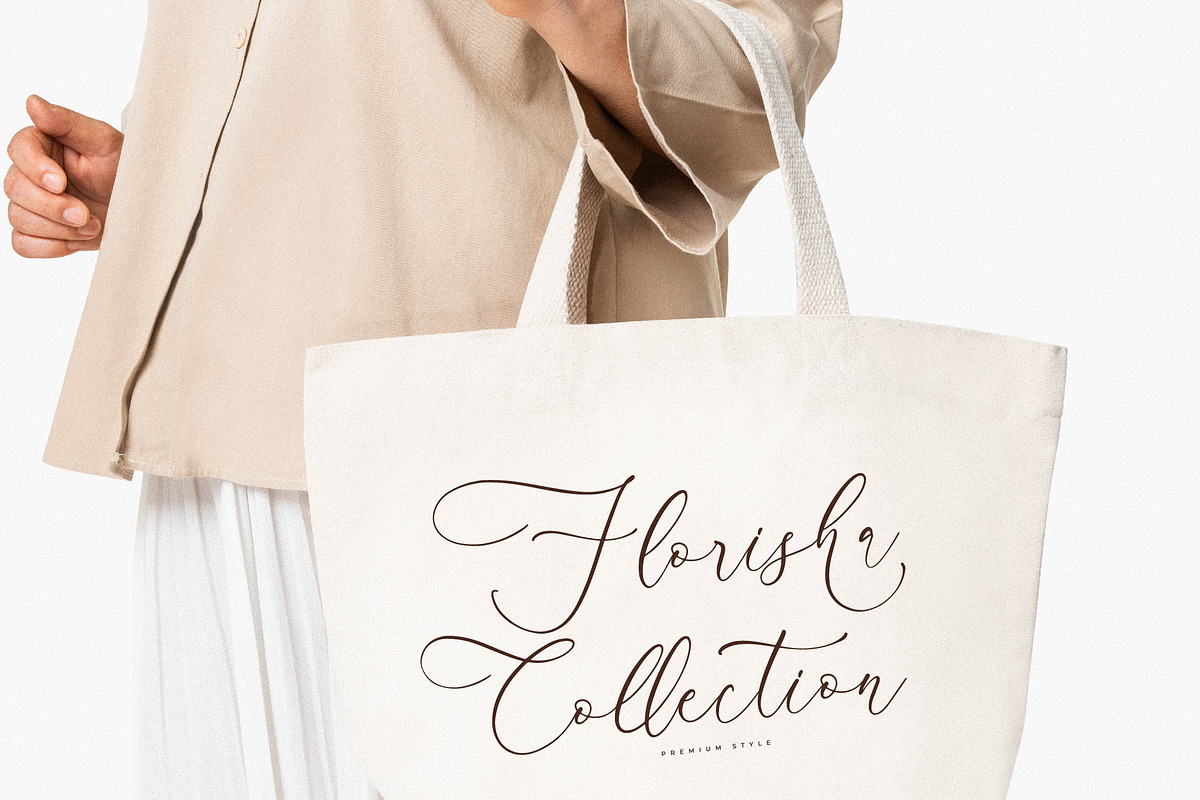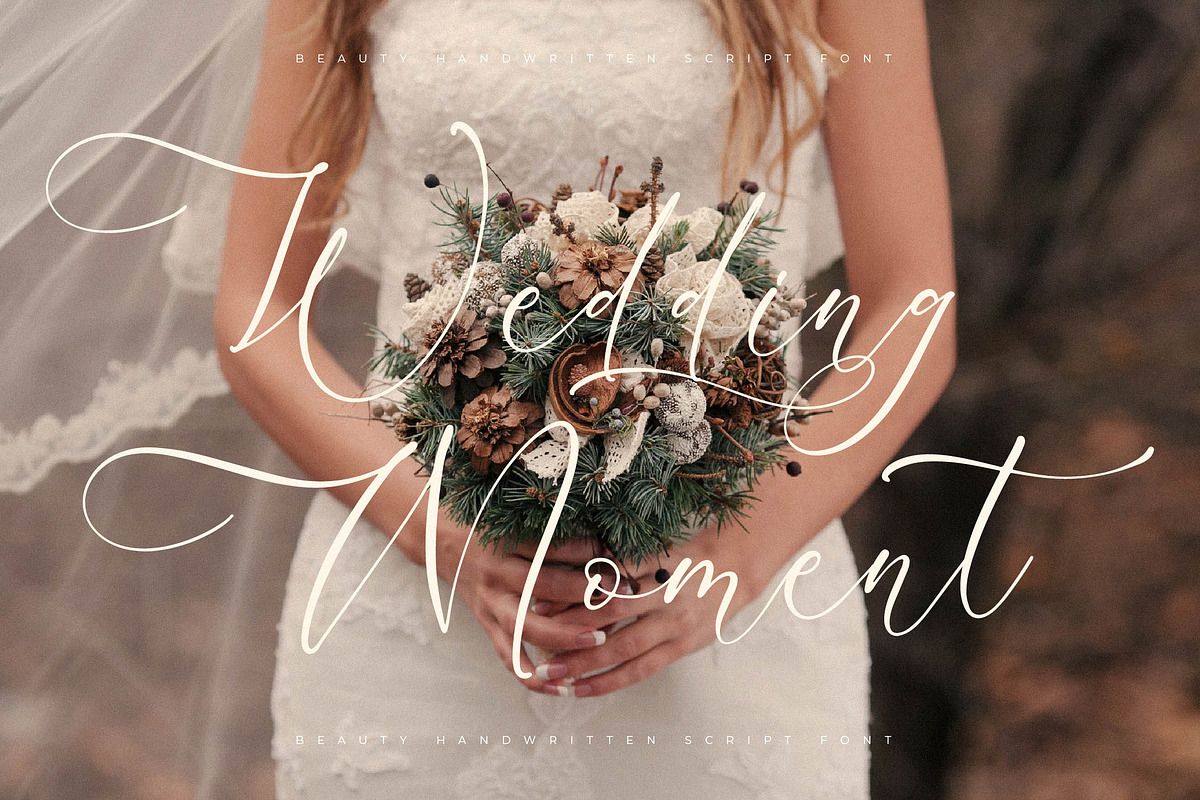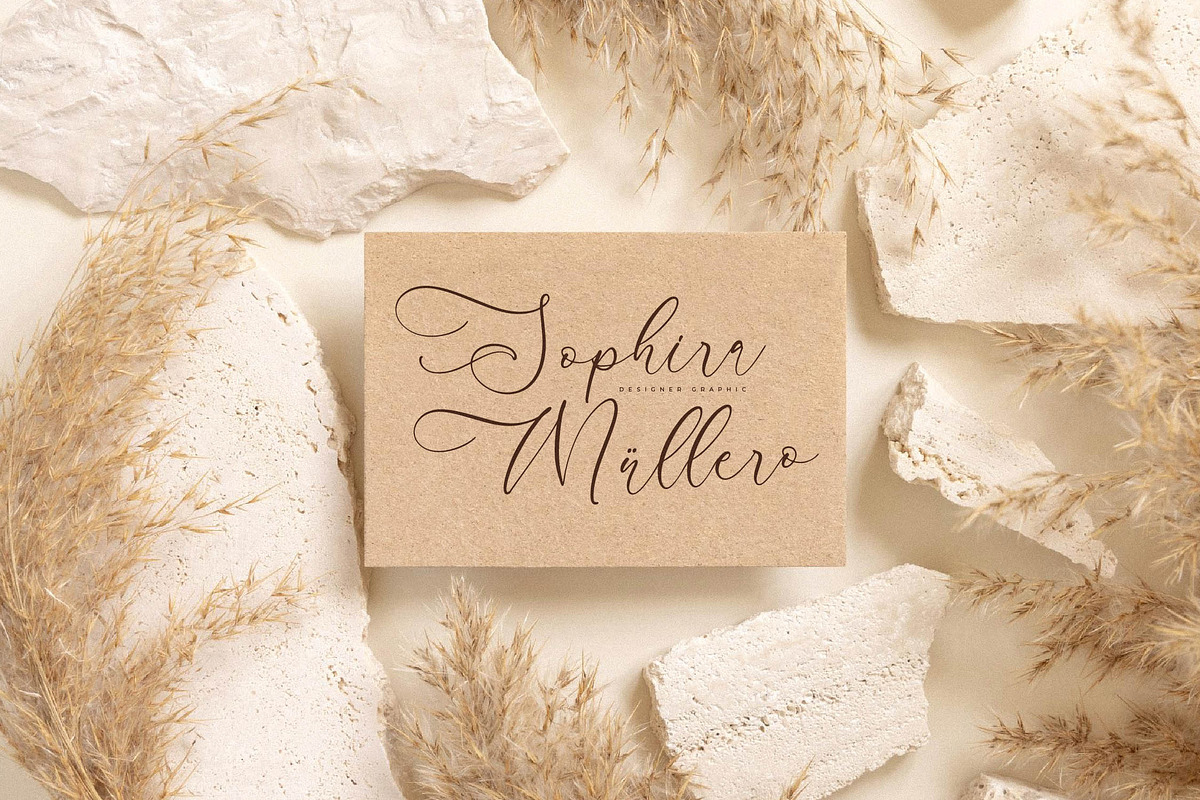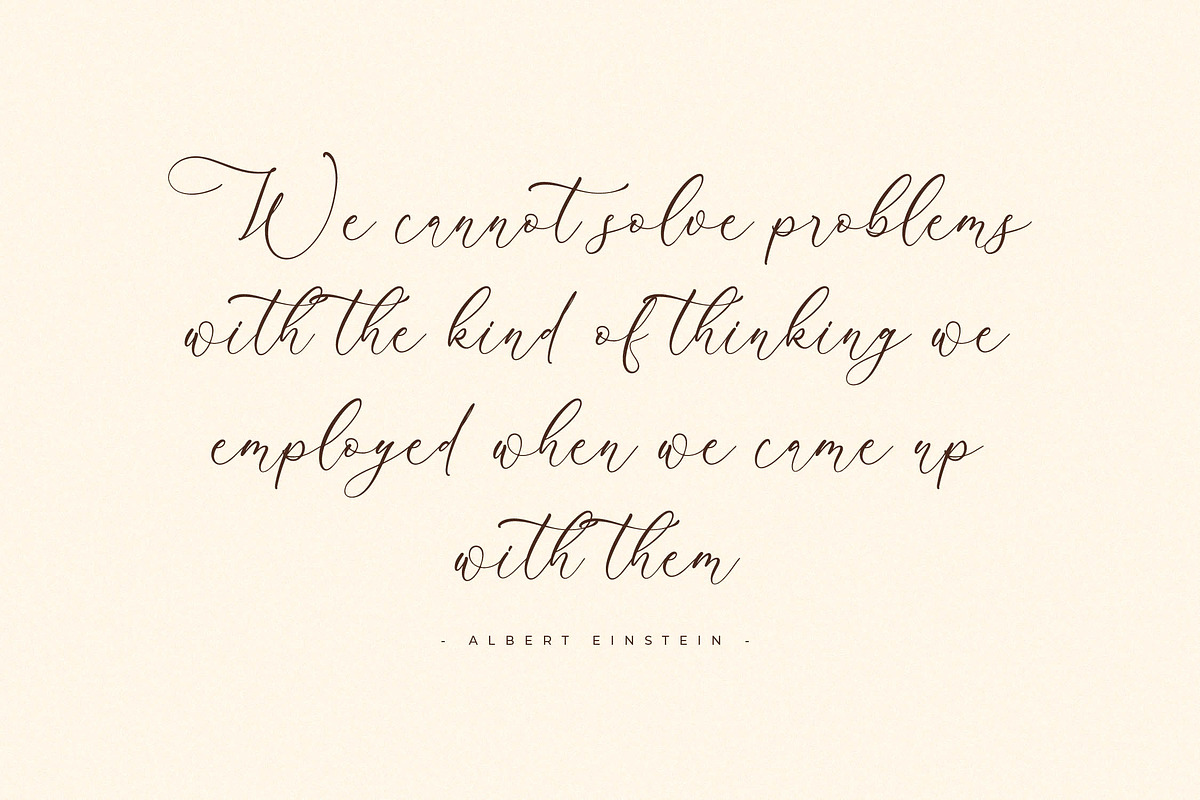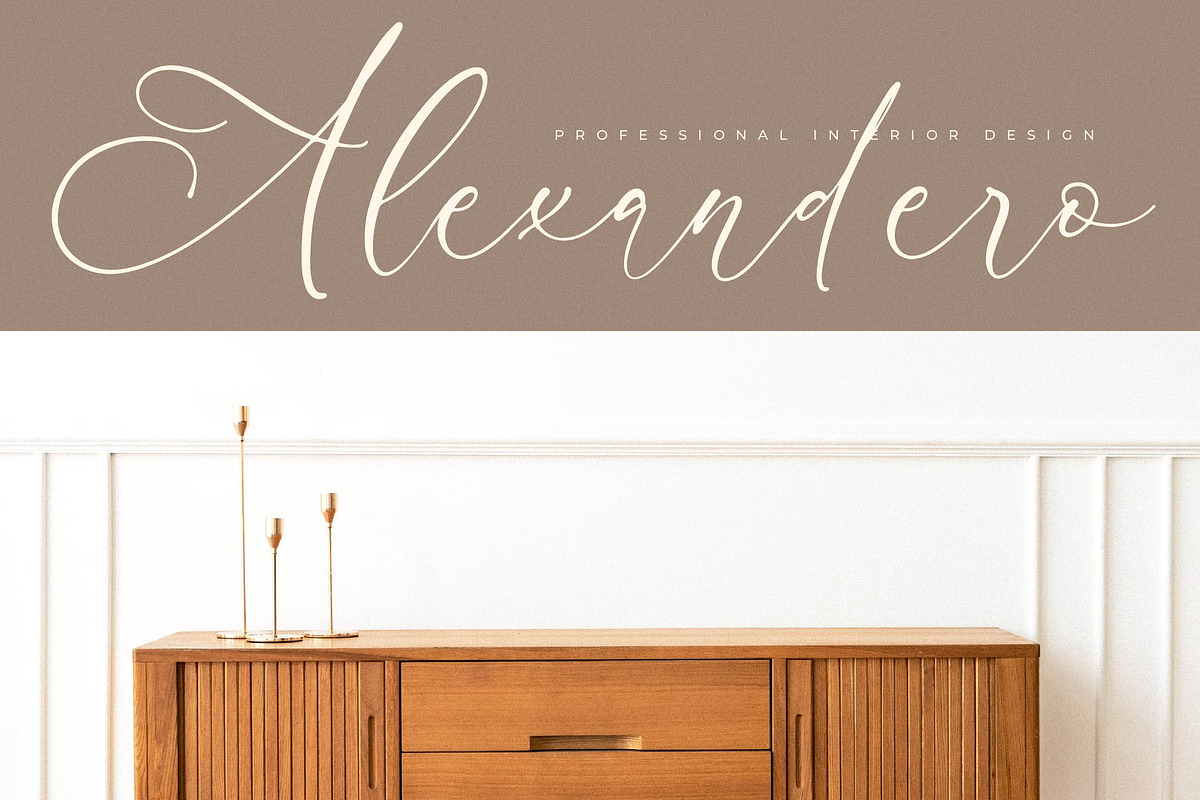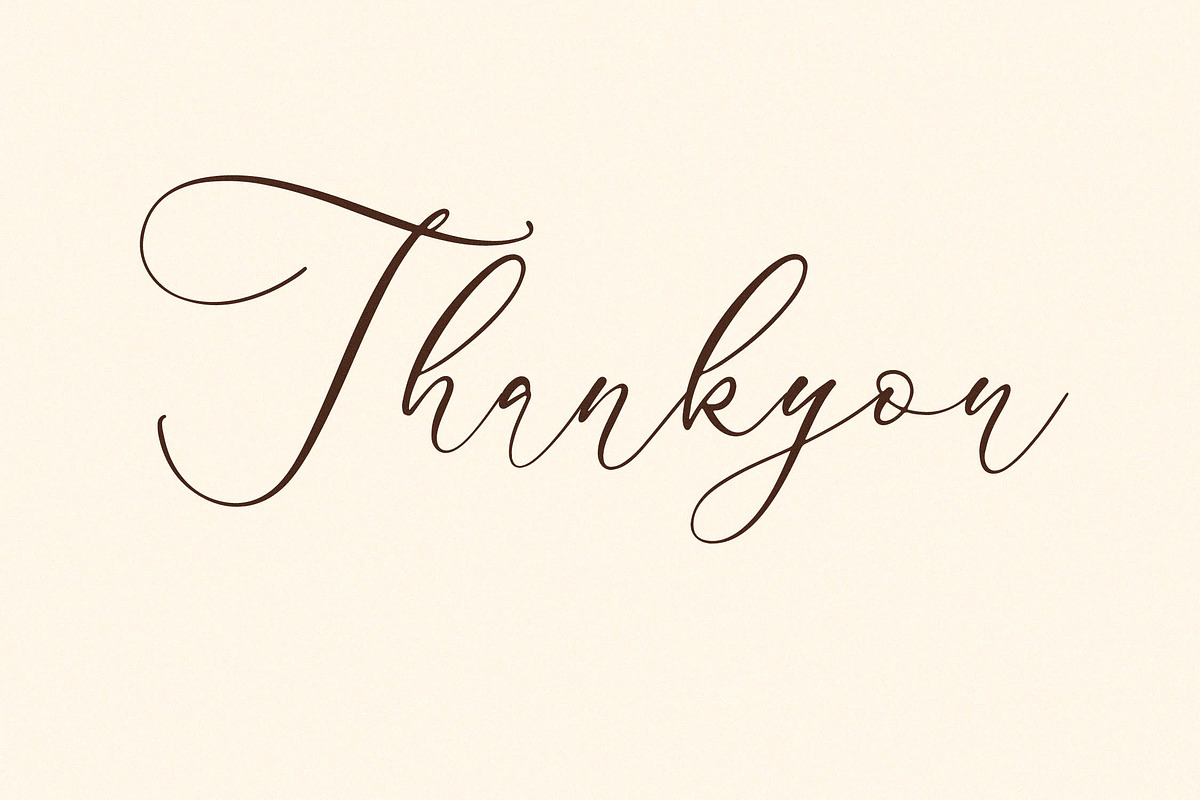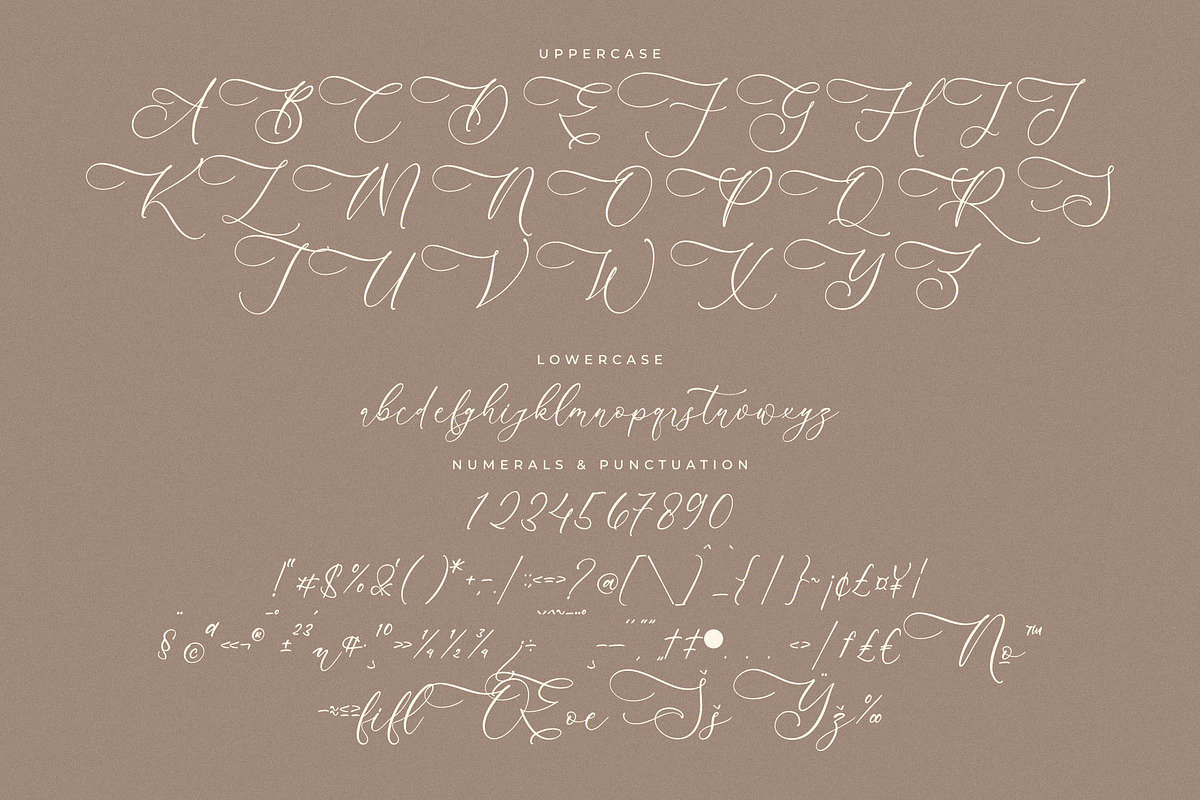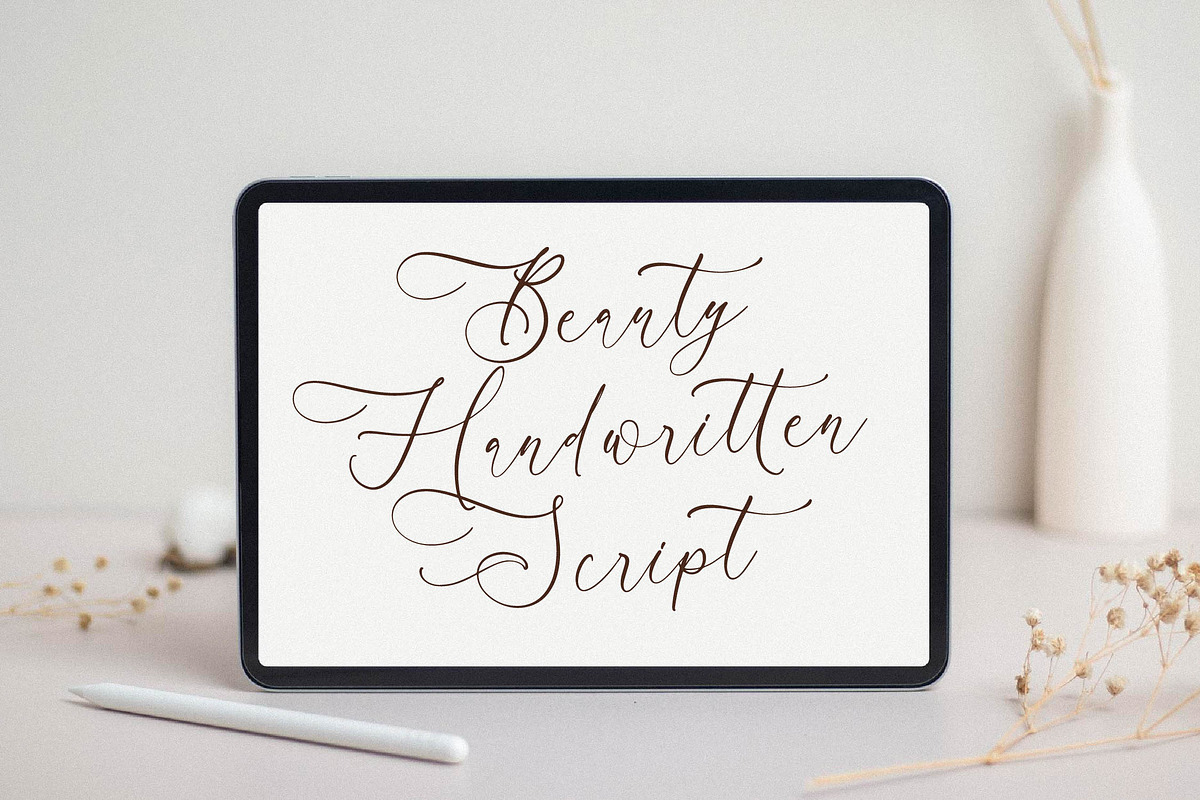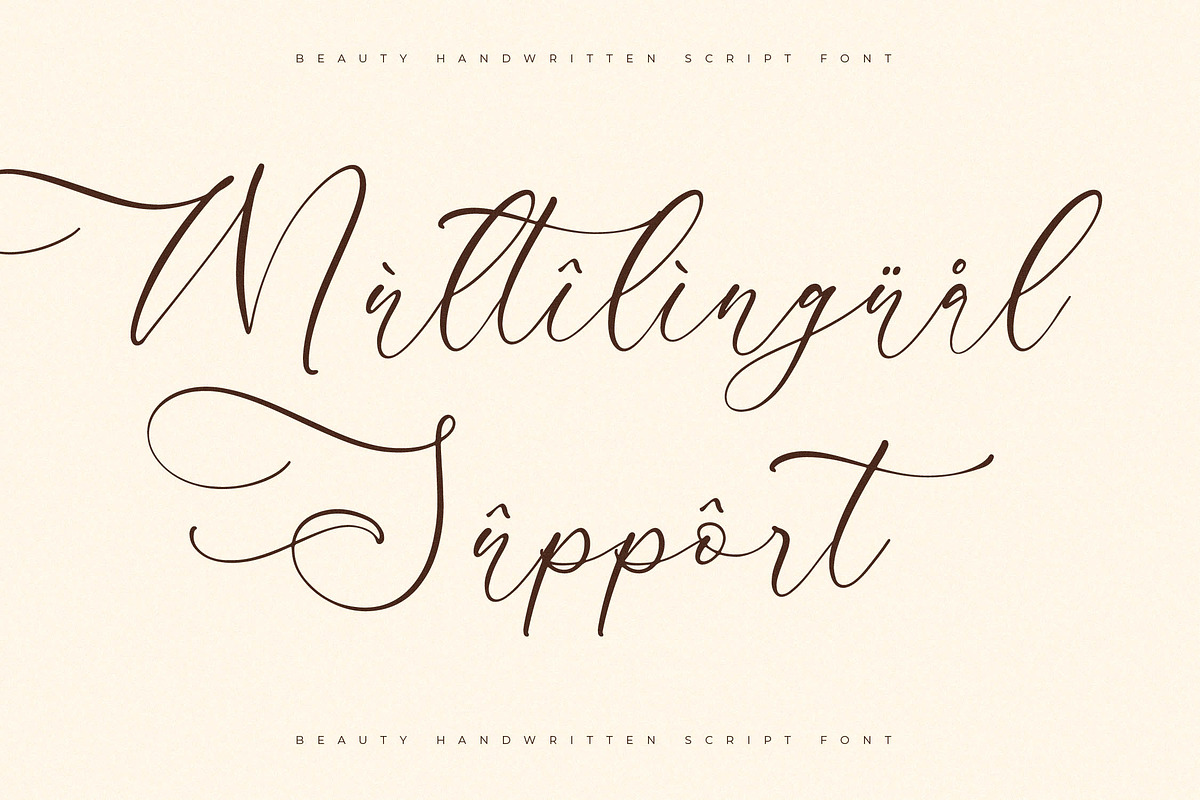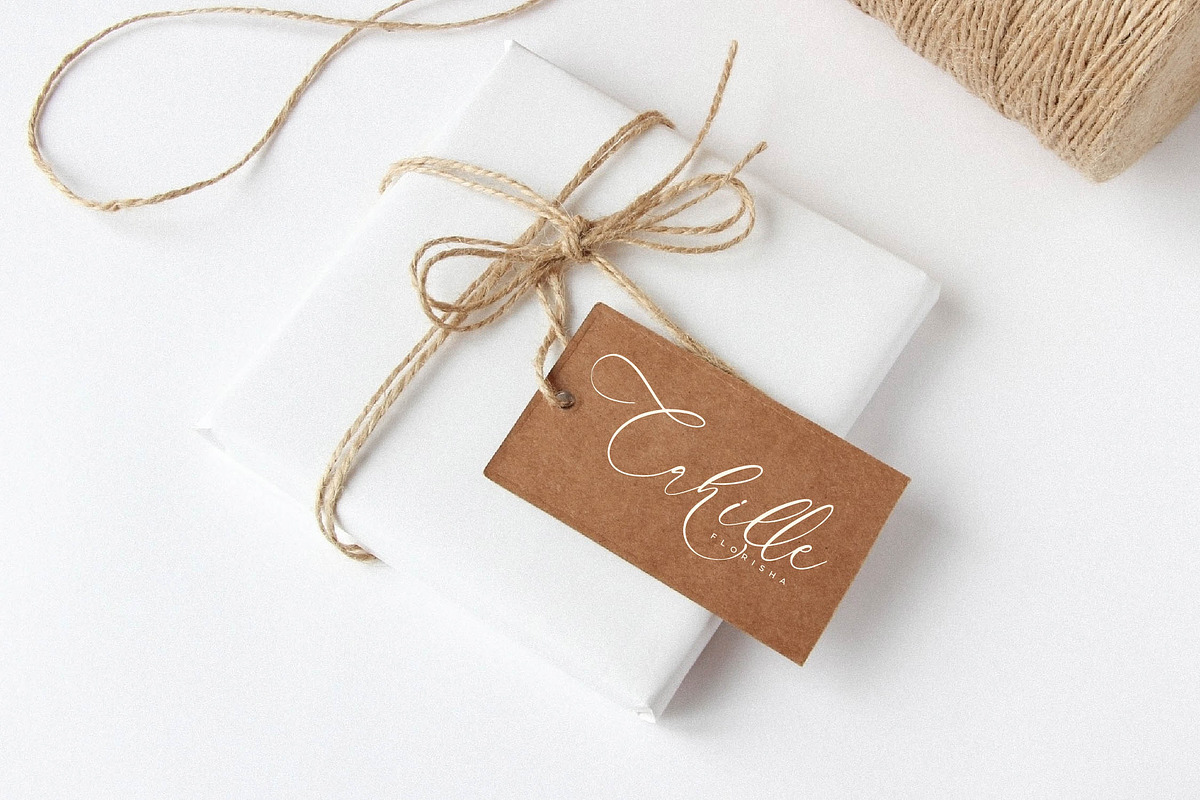
Andorale Heart Handwritten Script
Proudly present Andorale Heart – Beauty Handwritten Script , created by Storytype, A luxury script that has own unique style & modern look. This typeface is perfect for an elegant & luxury logo, book or movie title design, fashion brand, magazine, clothes, lettering, quotes, and so much more.